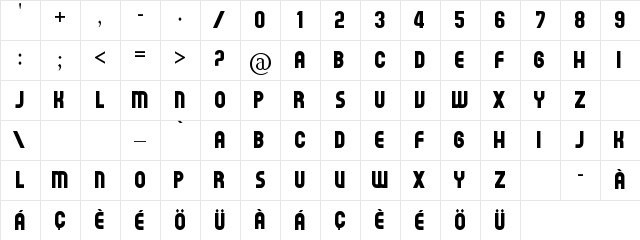
F.C. BARCELONA Regular Free Font
F.C. BARCELONA Regular
Design Context for F.C. BARCELONA
F.C. BARCELONA is a composed and adaptable typeface that performs quietly and consistently across a wide range of design contexts.